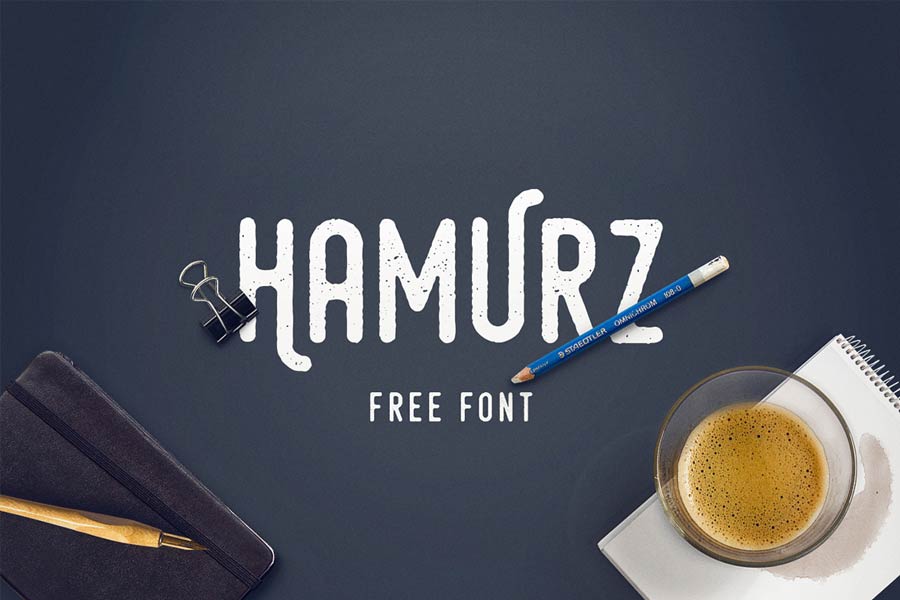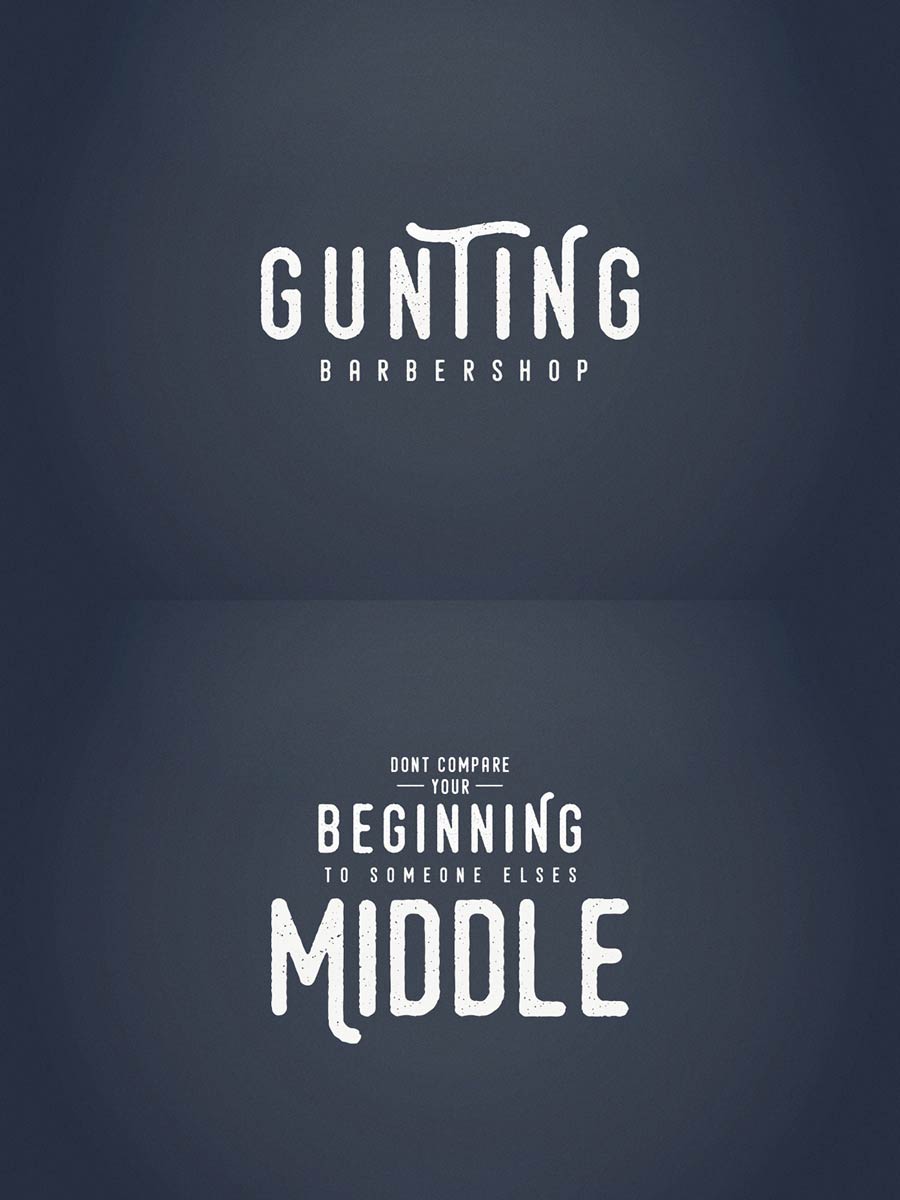
Hamurz is a eroded, grungy and tribal style font that you can download for free. The lowercase characters are the normal designs while you can mix and match with uppercases that have more elaborated designs to create cool looking logos and labels.
- Designer: Bagus Budiyanto